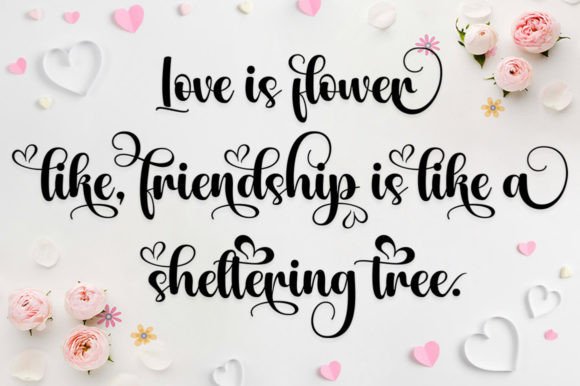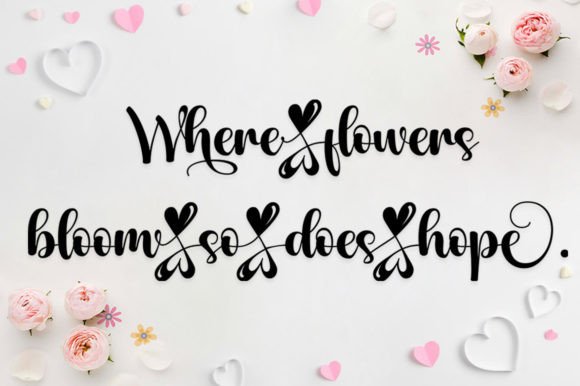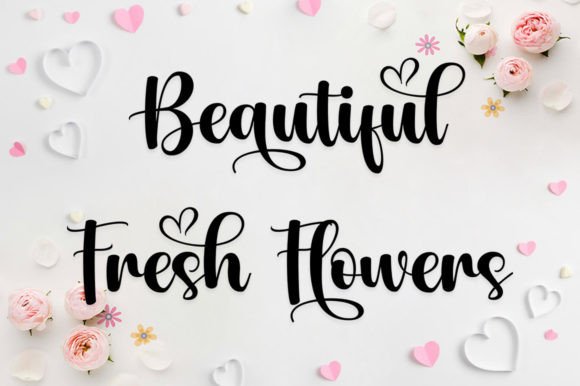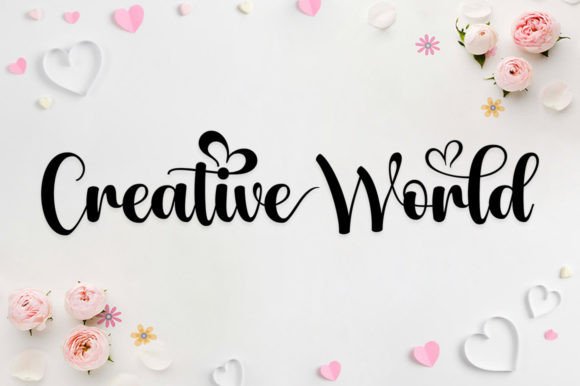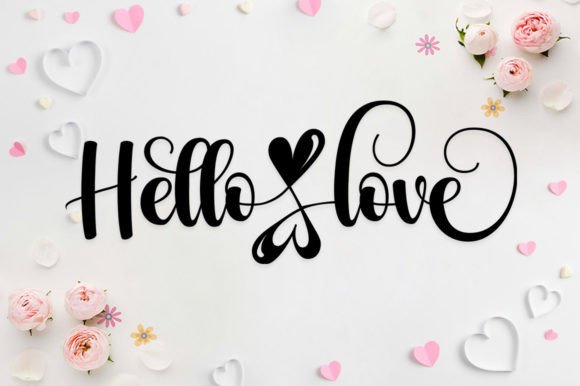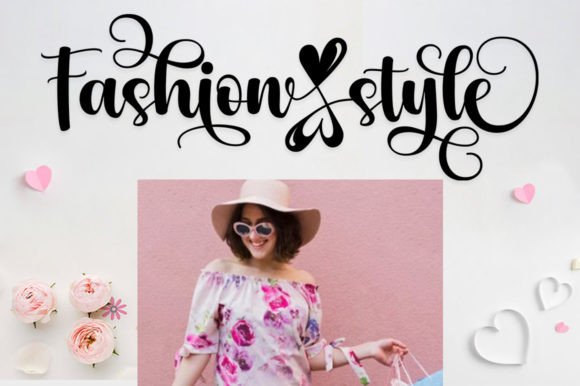
The Magic of Boyka Font: A Designer’s New Best Friend
I’ll never forget the time I was working on a project for a client who wanted a custom wedding invitation design. I had a clear vision of what I wanted to create, but there was one major hurdle: finding the perfect font. I scrolled through page after page of Google results, but nothing seemed quite right. That was until I stumbled upon Boyka Font. With its warm, romantic, and jovial vibe, it was love at first sight! In this article, I’ll share my experience with Boyka Font, its features, and how to make the most of it in your designs.
First Impressions: What I Love About Boyka Font
Boyka Font has quickly become a staple in my design toolkit, and for good reason. Here are some of the things that I love about it:
- ✨ Cute and Versatile: Boyka Font is a beautifully crafted handwritten font that exudes warmth and friendliness. Its versatility makes it perfect for a wide range of projects, from wedding invitations to branding and packaging.
- ✅ PUA Coded: The font is PUA coded, which means that accessing glyphs and swashes is a breeze. This feature makes it easy to add a personal touch to your designs.
- 🌎 Language Support: Boyka Font comes with language support, making it a great choice for designers who work with clients from diverse linguistic backgrounds.
While Boyka Font has won my heart, it’s not without its quirks. Here are a few things to keep in mind:
- 🤔 Glyph Overload: With so many glyphs and swashes at your disposal, it’s easy to get carried away. Take some time to explore the font and plan your design carefully to avoid overwhelming your project.
- ⚠️ Legibility at Small Sizes: While Boyka Font is beautiful at larger sizes, it can become a bit tricky to read at smaller sizes. Be mindful of this when choosing font sizes for your project.
A Practical Guide to Using Boyka Font
The Story Behind Boyka Font
Boyka Font was designed with love and care by a talented type designer who wanted to create a font that would bring warmth and personality to designs. The font’s creator drew inspiration from classic handwritten fonts, with a modern twist. The result is a beautiful, versatile font that’s perfect for a wide range of design projects.
| What is Boyka Font? | Boyka Font is a cute, versatile, and flexible handwritten font that’s perfect for a wide range of design projects. |